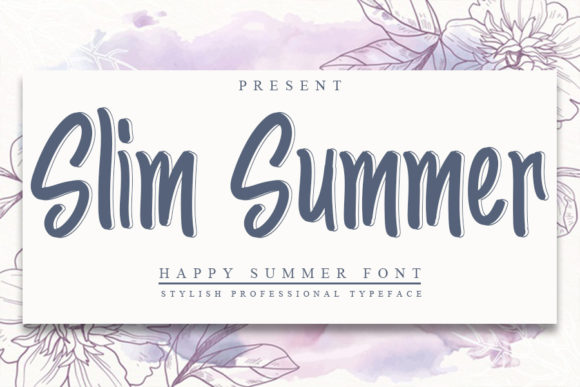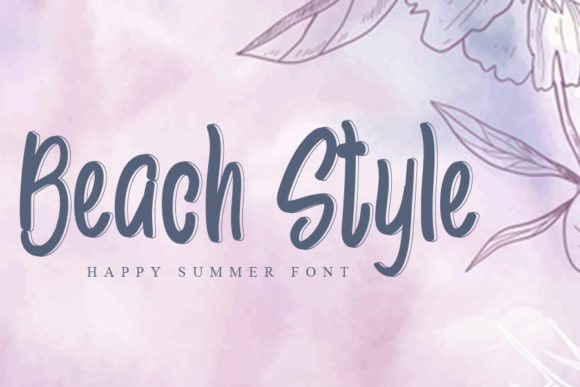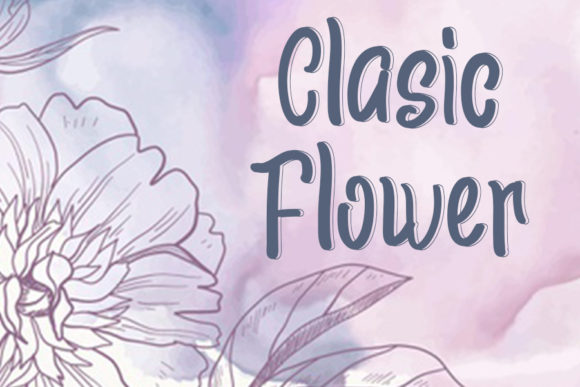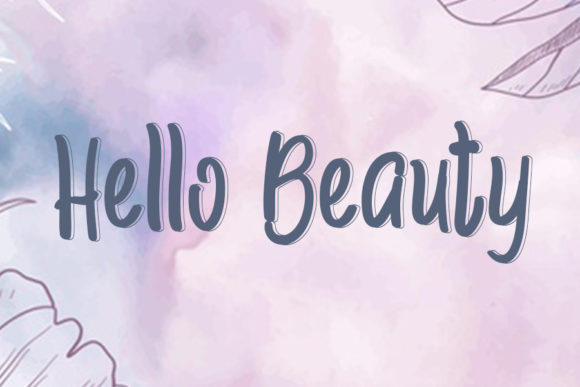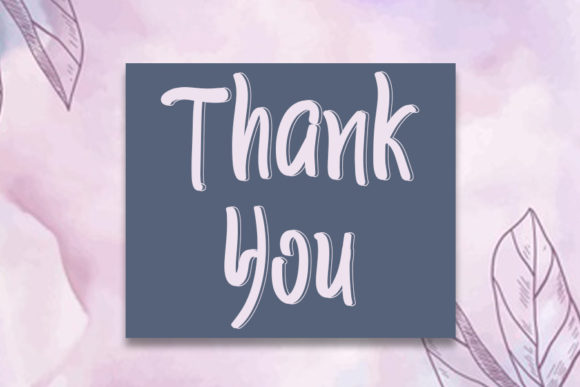
Slim Summer Font
About Slim Summer Font
Introducing “Slim Summer,” a friendly handwritten font crafted with a touch of elegance. Its inviting style will instantly win you over, making it the perfect choice for a wide range of design projects. Prepare to be enchanted by its incredible versatility and watch as it elevates your creations to new heights, allowing you to craft truly spectacular designs!
“Slim Summer” exudes a sense of warmth and approachability, making it ideal for creating friendly and welcoming designs. Whether you’re working on invitations, greeting cards, or social media graphics, this font adds a personal touch that resonates with your audience and leaves a lasting impression.
The font’s carefully crafted elegance brings a touch of sophistication to your projects. Its slender and refined strokes lend an air of grace, making “Slim Summer” a wonderful choice for elegant branding, logos, and packaging designs. Embrace the charm of this font and watch as it adds a touch of class to every element of your project.
The beauty of “Slim Summer” lies in its versatility. Its legible and well-balanced characters ensure that your message is communicated effectively, whether it’s in headlines or body text. The font adapts seamlessly to various design contexts, providing a consistent and polished look throughout your work.
Unleash your creativity and let “Slim Summer” be the inspiration behind your most imaginative designs. Fall in love with its friendly and elegant handwritten charm, and watch as it transforms your ideas into breathtaking visuals that captivate and engage your audience.
So, immerse yourself in the allure of “Slim Summer” and let it become your creative companion. Allow its versatile and elegant touch to inspire your designs, turning them into spectacular creations that leave a lasting impact. Whether you’re a seasoned designer or a passionate enthusiast, “Slim Summer” empowers you to craft designs that radiate warmth, elegance, and creativity. Let “Slim Summer” be the key to unlocking your full creative potential and watch as it takes your projects to new heights of beauty and excellence!